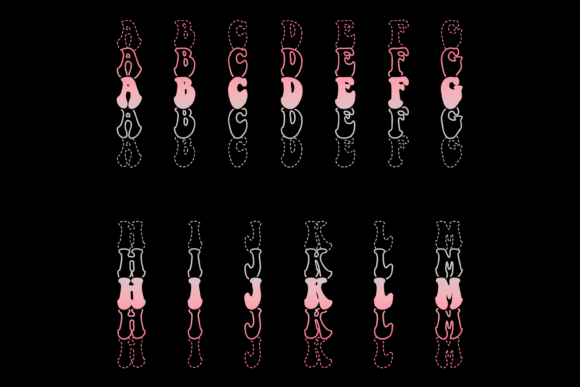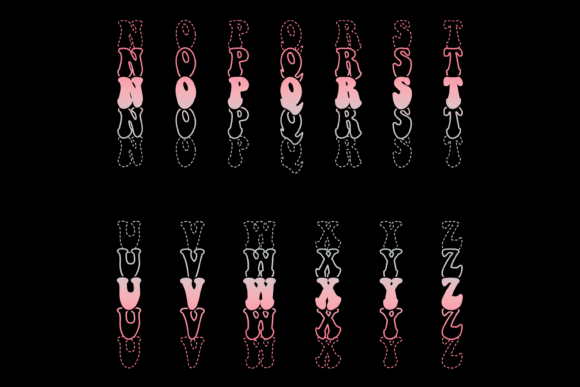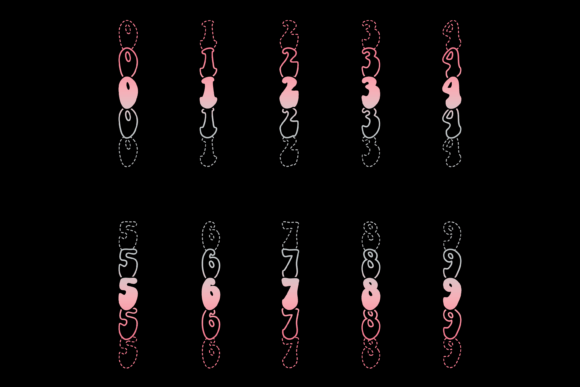
Get Ready to Groove with the 70s Vibes Font
You know that moment when you’re browsing through old vinyl records or vintage clothing stores, and suddenly you’re hit with a wave of nostalgia? The smell of incense, the sound of disco music, and the feel of worn denim – it’s a sensory experience that’s hard to resist. As a creative, you’re always on the lookout for ways to tap into that retro charm and infuse it into your work. That’s where the 70s Vibes Font comes in – a groovy, bold font that’s perfect for adding a touch of vintage flair to your designs.
Whether you’re designing a custom poster, creating DIY crafts, or just need a font that packs a punch, the 70s Vibes Font is an amazing choice. Its value lies in its versatility and ability to evoke a sense of nostalgia and fun. With its bold lines and playful spirit, this font is a must-have for designers looking to add some retro cool to their work.
Key Features of “70s Vibes Font”
- Font Style: The “70s Vibes Font” is a retro-style font with a funky, nostalgic feel, inspired by the aesthetic of the 1970s.
- Unique Characteristics: The font features distinctive rounded edges, curved lines, and playful flourishes that evoke the spirit of the 1970s, making it perfect for creating retro-themed designs.
- Legibility: Despite its nostalgic aesthetic, the font remains highly legible, making it suitable for body text, headings, and even large blocks of text.
Designer Review: 70s Vibes Font
I recently had the chance to work with the 70s Vibes Font, and I have to say, it’s a love letter to the era of disco and bell-bottoms. Here’s my honest review:
- ✨ The font has a clear retro aesthetic, perfect for projects that need a nostalgic feel.
- ✨ The bold weight is fantastic for titles and headings, adding a touch of drama to any design.
- ✨ The font is highly customizable, allowing you to adjust the spacing and line height to suit your needs.
- ⚠️ The font can feel a bit over-the-top, making it difficult to use in more subtle designs.
- ⚠️ The italic weight is a bit lacking, making it hard to create a cohesive look with titles and body text.
Overall, the 70s Vibes Font is a great choice for projects that need a bold, retro vibe. While it may not be suitable for every design, it’s a great addition to any font library. With a bit of restraint, you can use this font to create some truly eye-catching designs.
Tips for Getting the Most Out of the “70s Vibes Font”
To get the most out of the “70s Vibes Font,” try the following:
- Pair the font with complementary colors and graphics to create a cohesive retro look.
- Use the font to create a nostalgic or retro-themed design.
The “70s Vibes Font” is perfect for:
- Retro-themed designs (e.g., posters, flyers, social media graphics).
Alternative Fonts to 70s Vibes Font
Pacifico is a beautiful, elegant script font that evokes a sense of relaxation and calmness. It’s perfect for use in branding, packaging, and advertising materials where a touch of sophistication is required.
Compared to 70s Vibes Font, Pacifico has a more refined and modern feel, but still retains a hint of retro charm. While 70s Vibes Font is more playful and quirky, Pacifico is more understated and sophisticated.
Great Vibes is a fun, energetic script font that’s perfect for use in titles, headings, and other display typography. It’s great for creating a sense of excitement and playfulness in your designs.